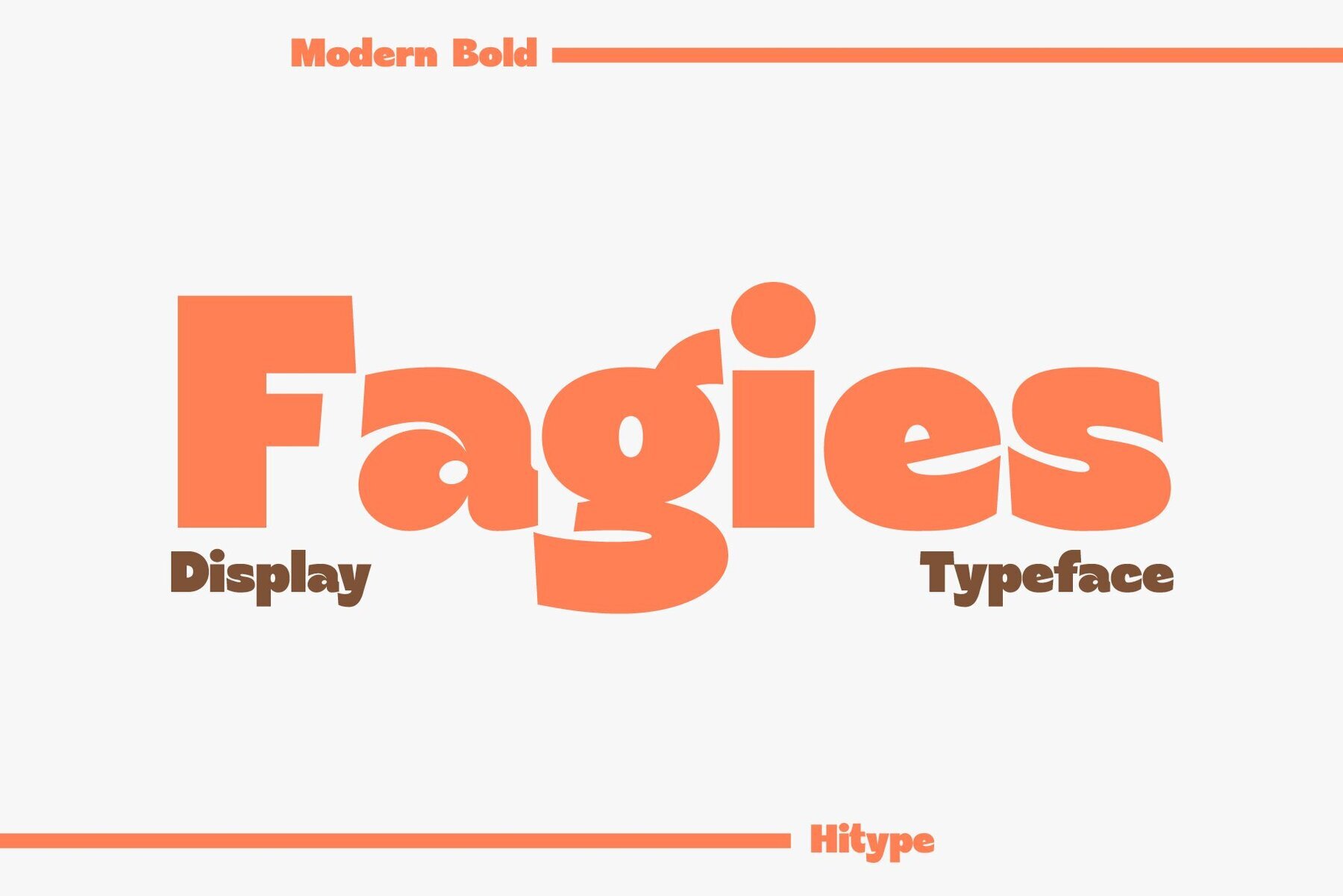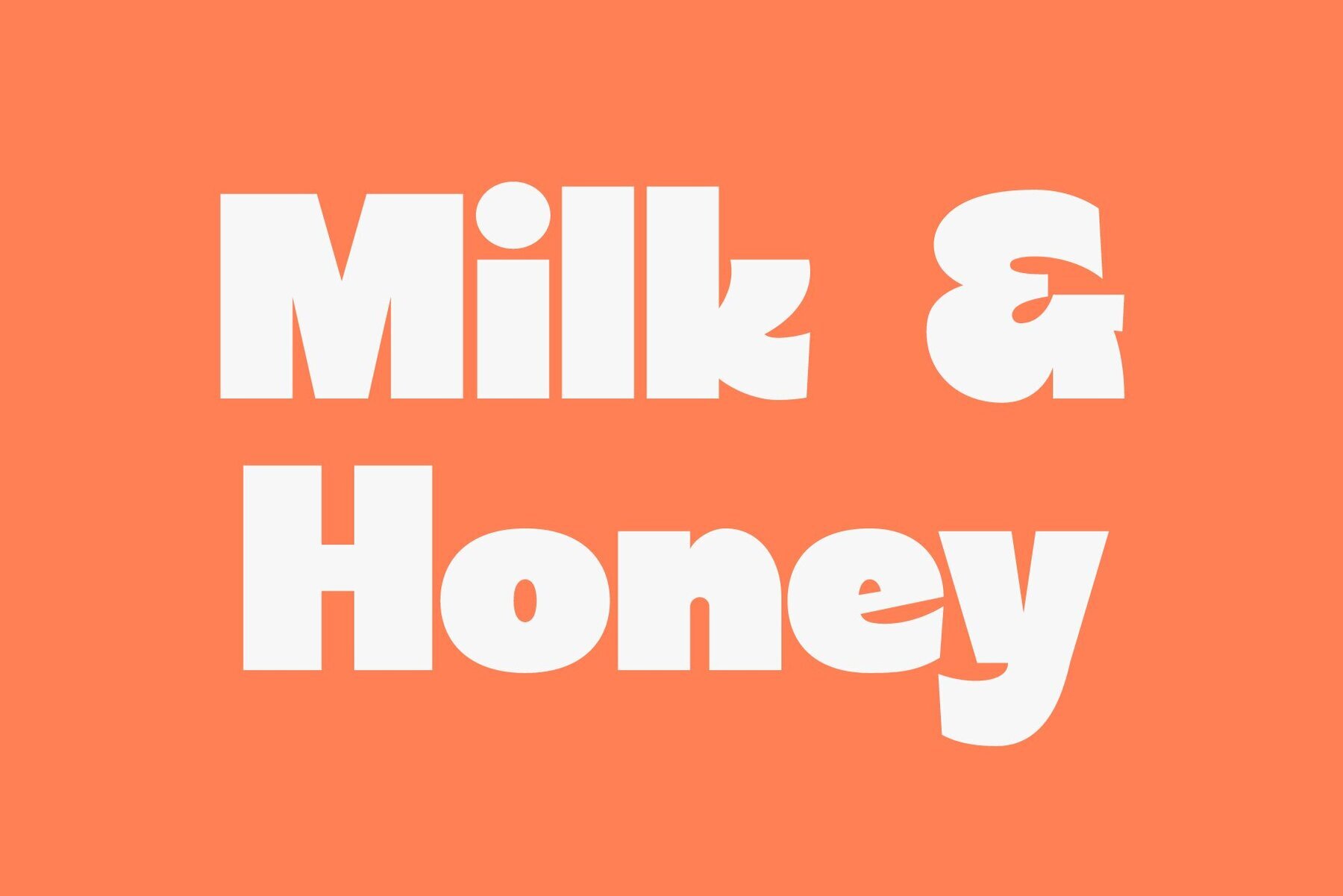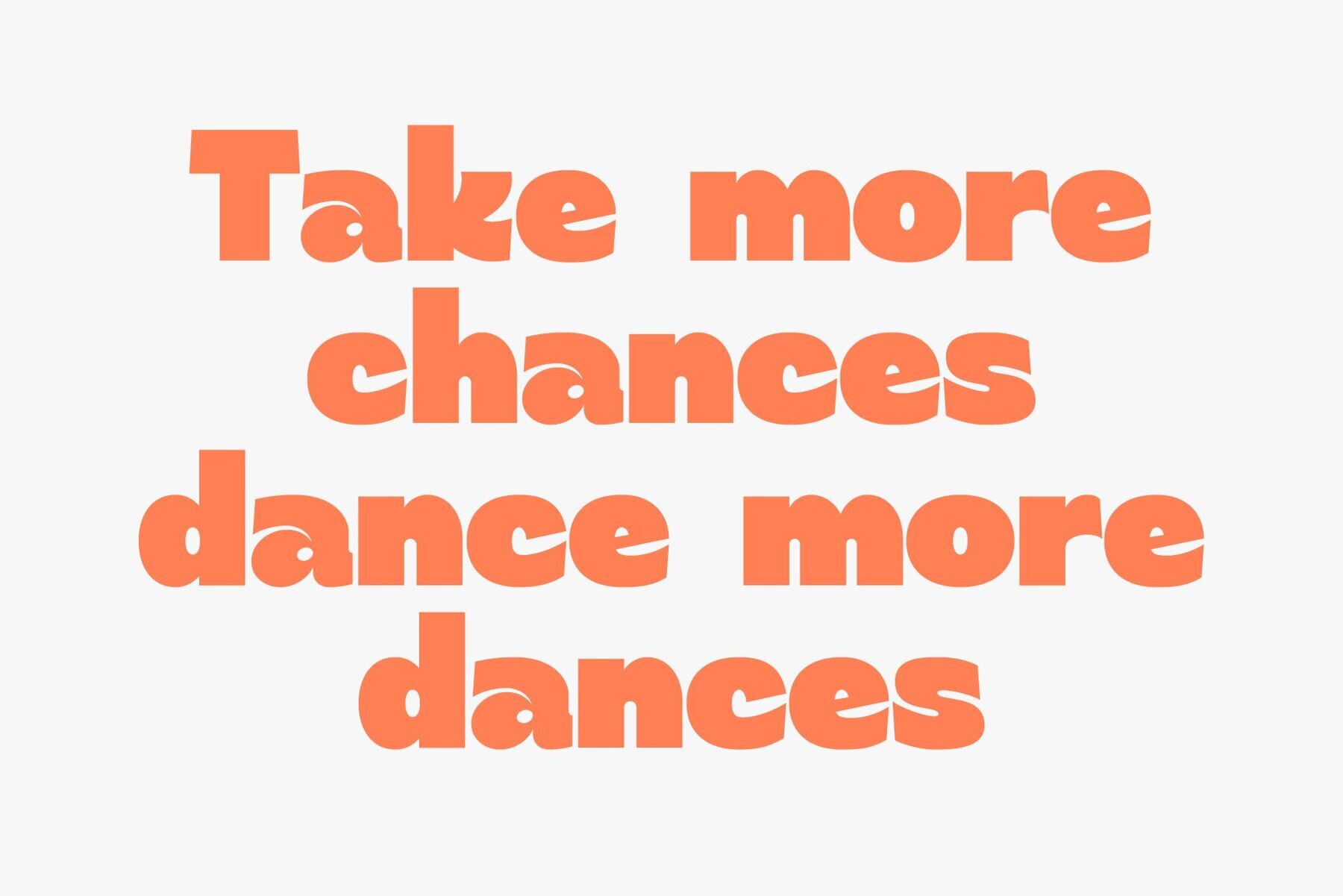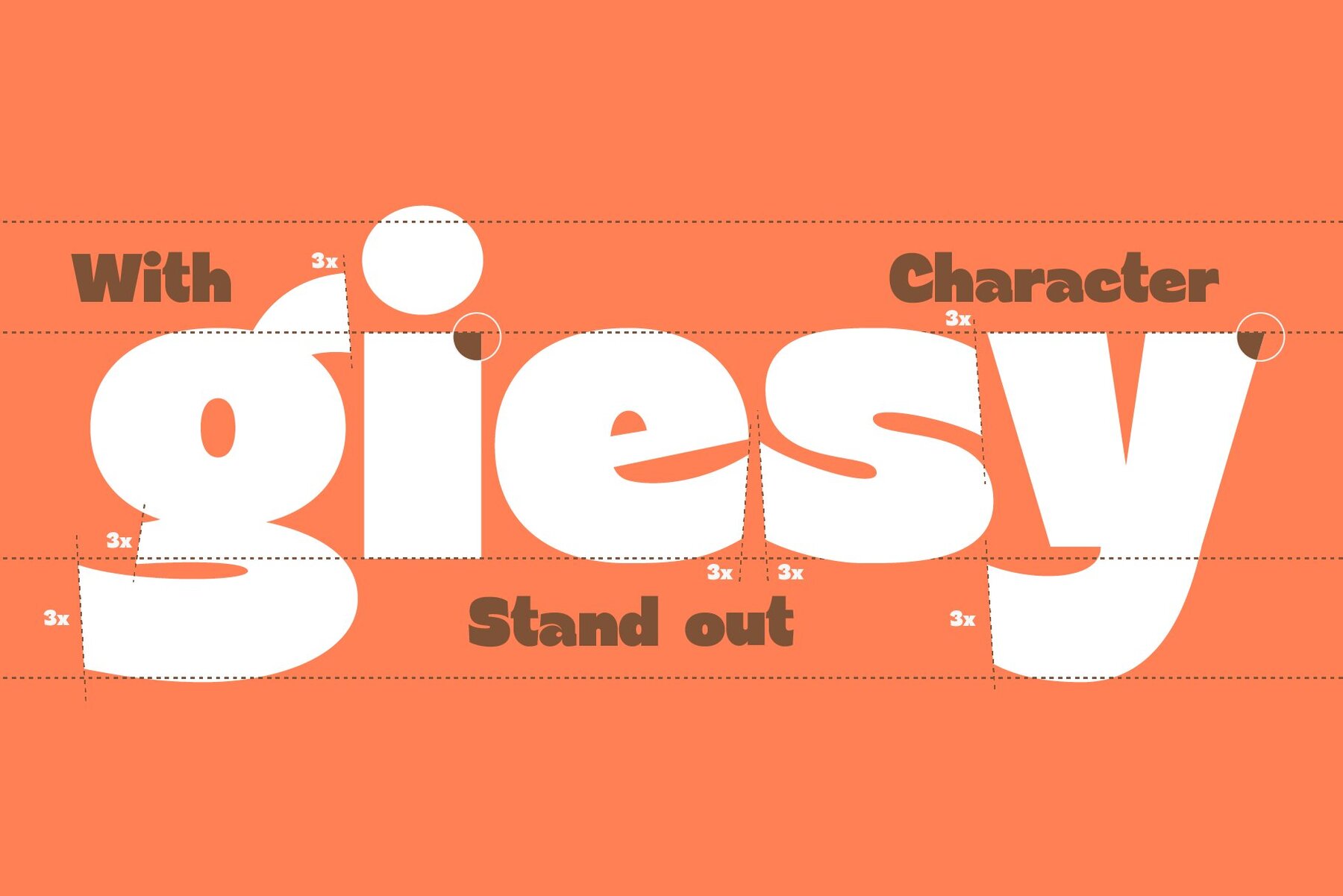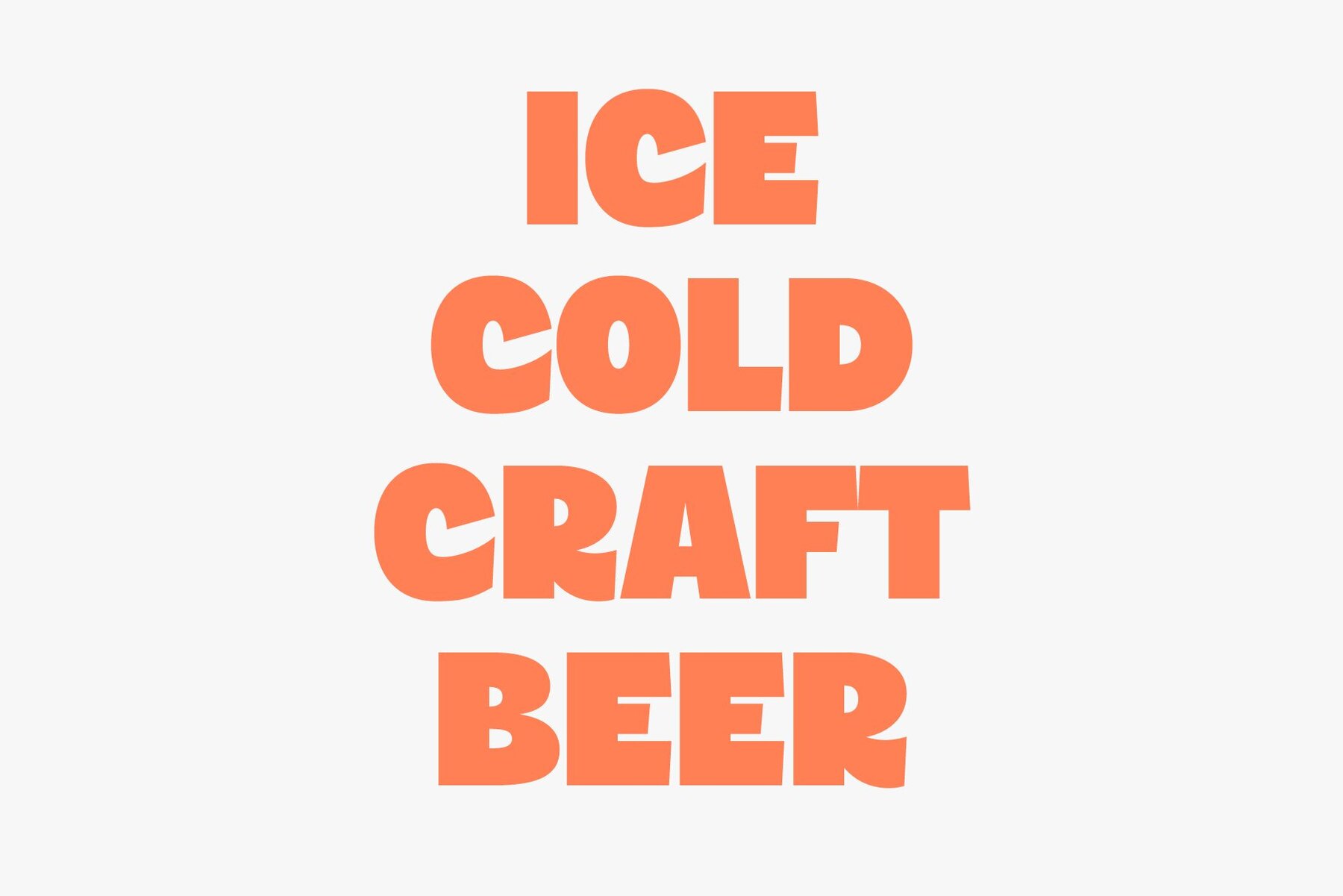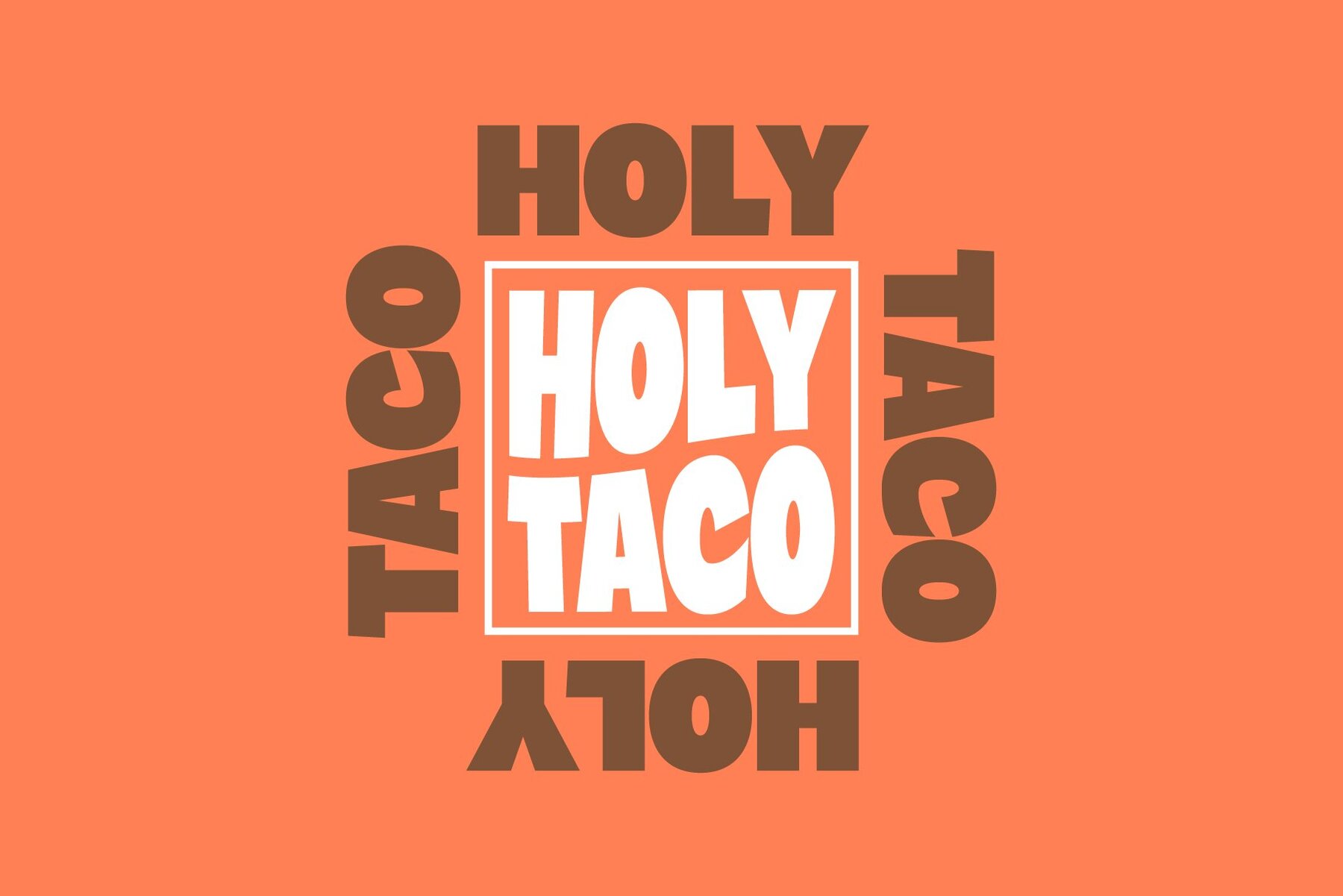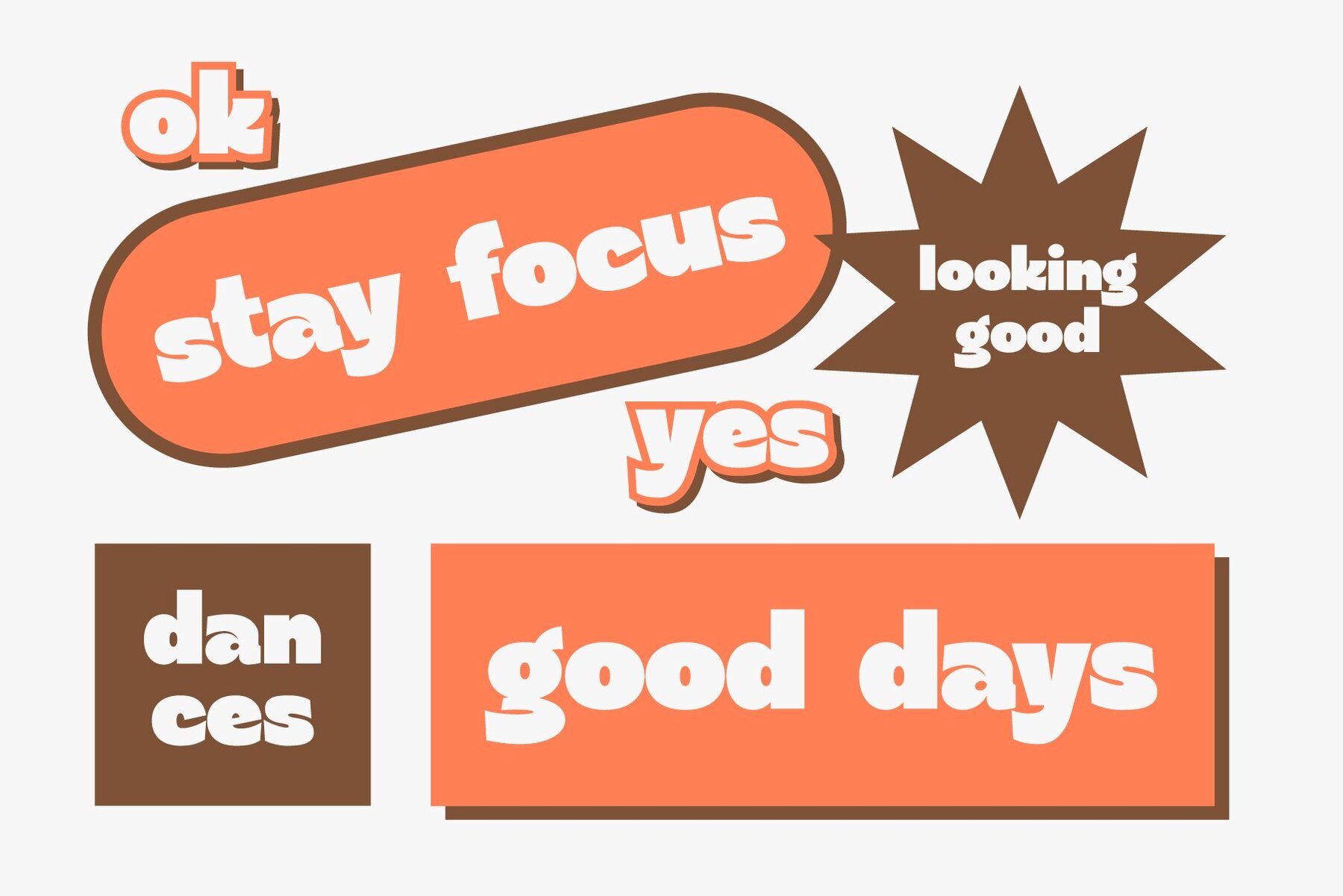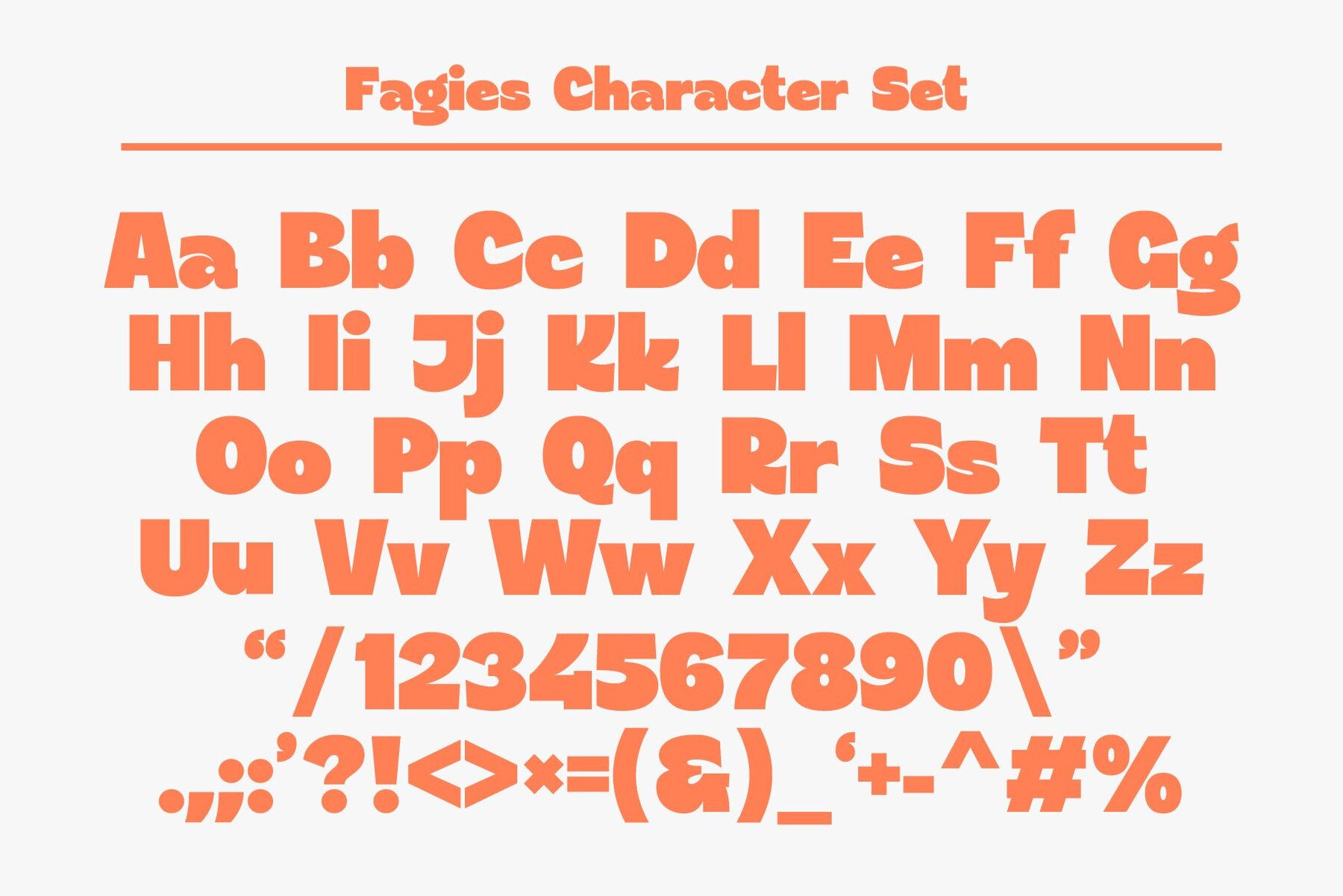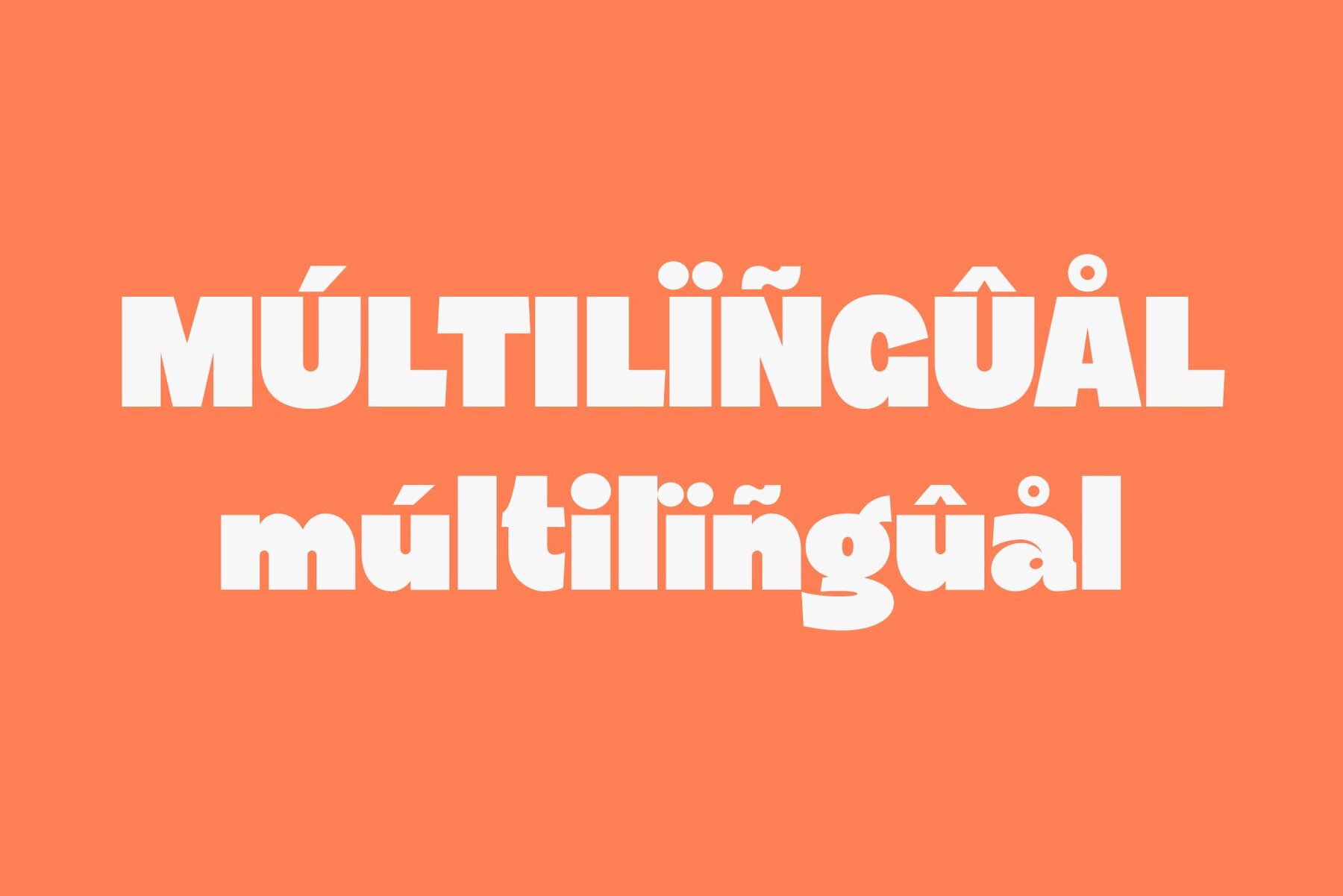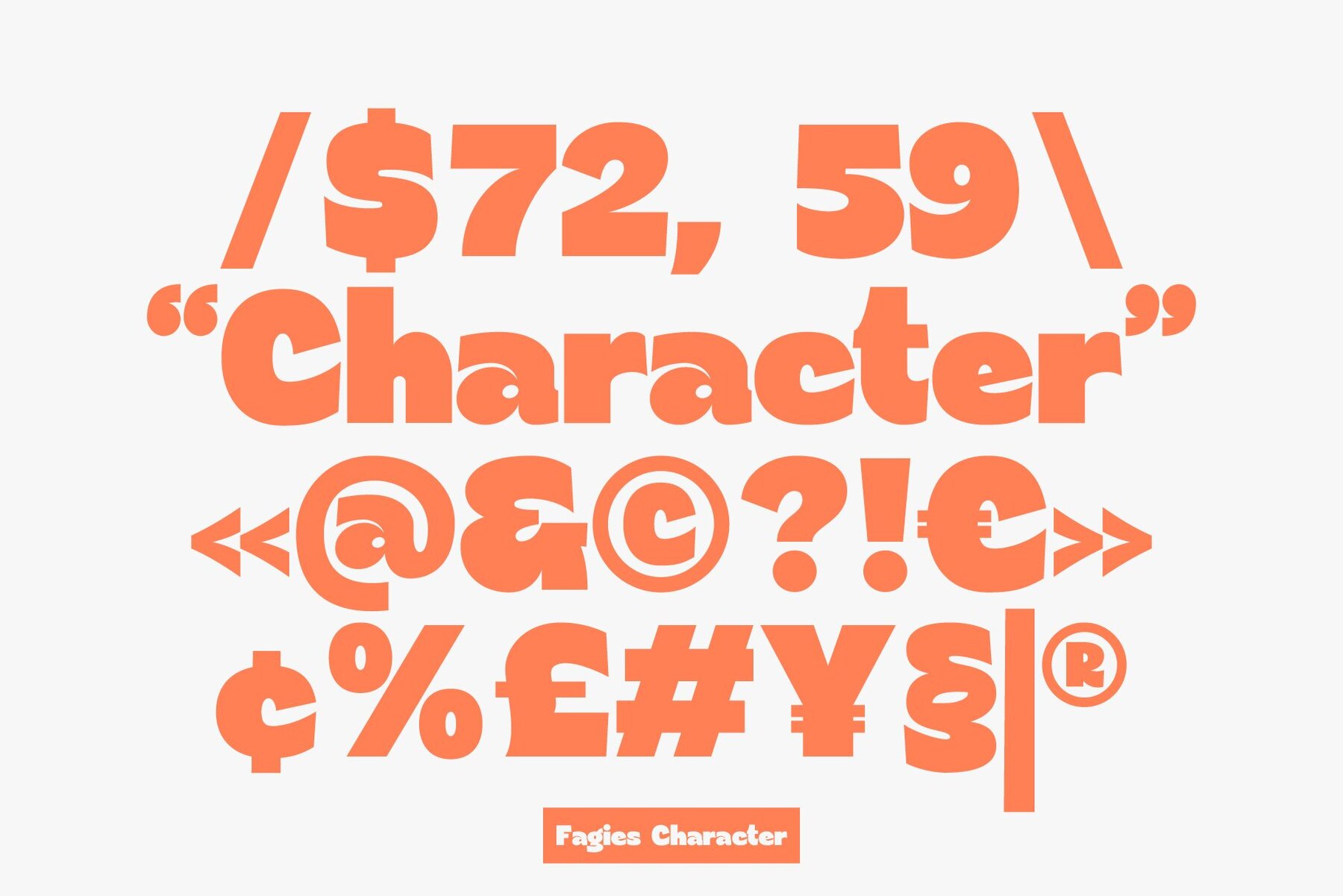
Fagies Font
Fagies
Fagies is a bold display typeface that asserts itself with playful shapes and a strong personality. It's designed to make headlines pop and messages stand out, seamlessly blending chunky proportions with quirky details. Its unique and friendly vibe makes it an ideal choice for a variety of projects, including posters, packaging, social media, and logos. Whether in print or digital media, Fagies infuses designs with charm and bold creativity.Fagies Typeface